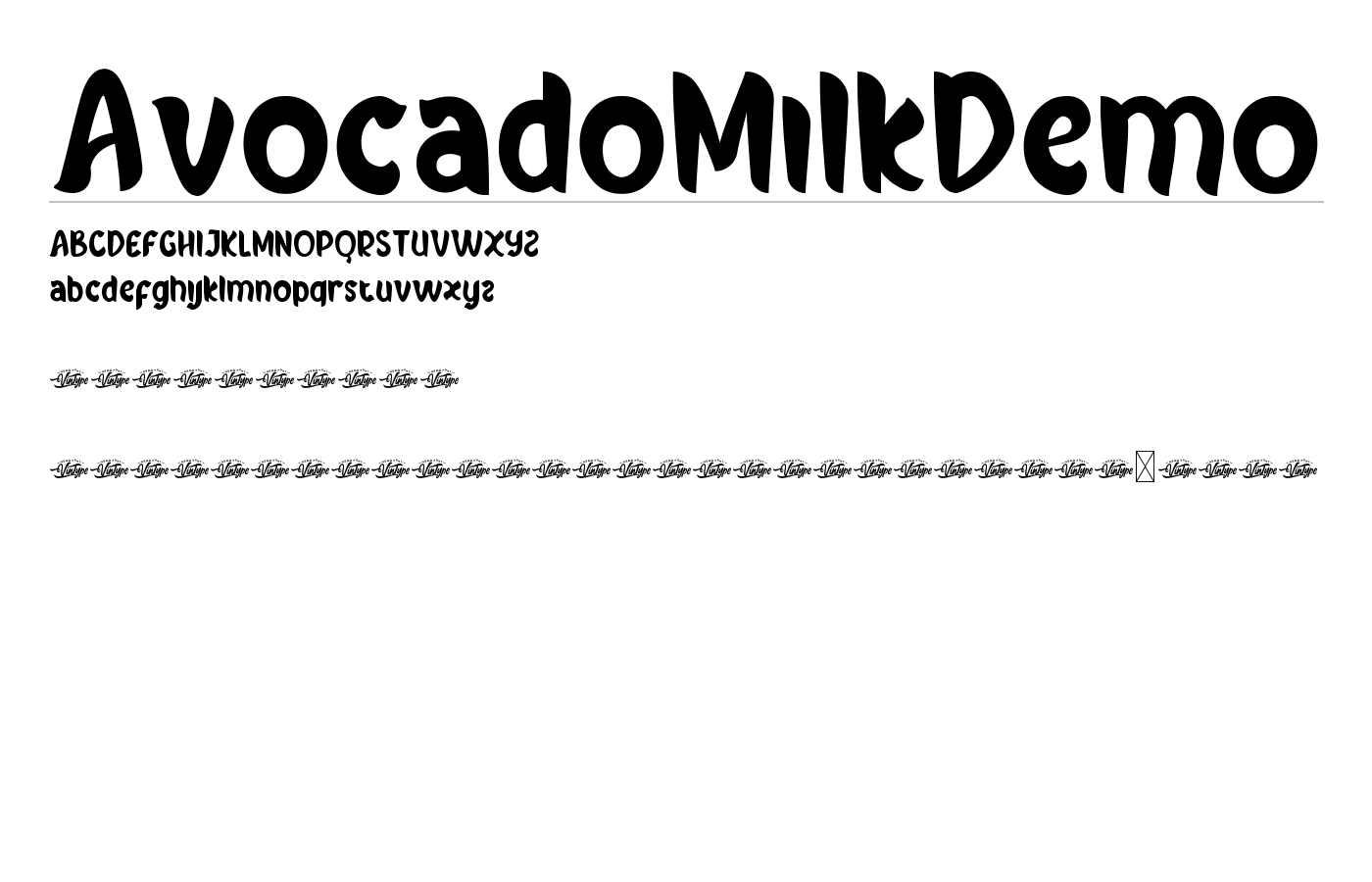
AvocadoMilkDemo is a playful and bold sans serif font with rounded, slightly irregular letterforms that evoke a casual, hand-crafted feel. Its chunky weight and friendly character make it perfect for creative branding, children's products, or any project seeking a fun and approachable vibe. This font stands out best in headlines and logos where a lively, informal style is desired.
AvocadoMilkDemo Font